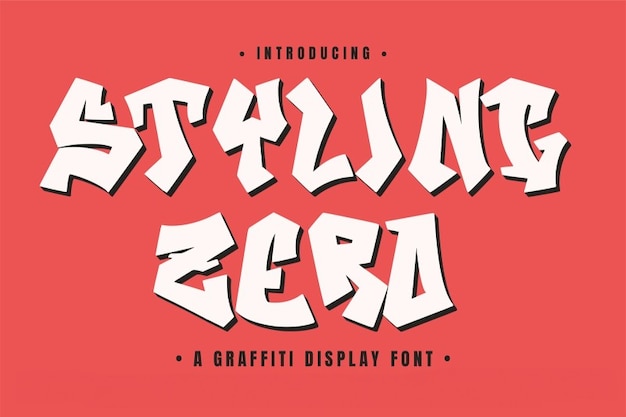
Styling Zero
Styling Zero Font
"Styling Zero" font embodies the boldness of blocky graffiti, echoing the urban vibe of the streets and the rhythm of rap. With its edgy, robust letters, it commands attention, infusing designs with the raw energy of the ghetto. Perfect for adding streetwise flair to projects, delivering an unapologetic statement with every stroke.